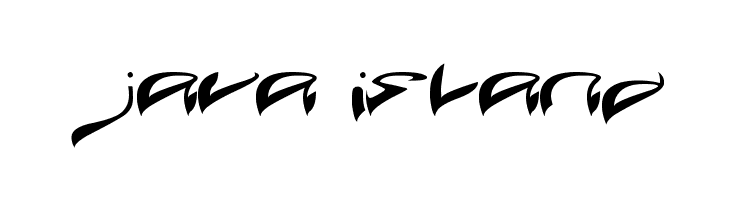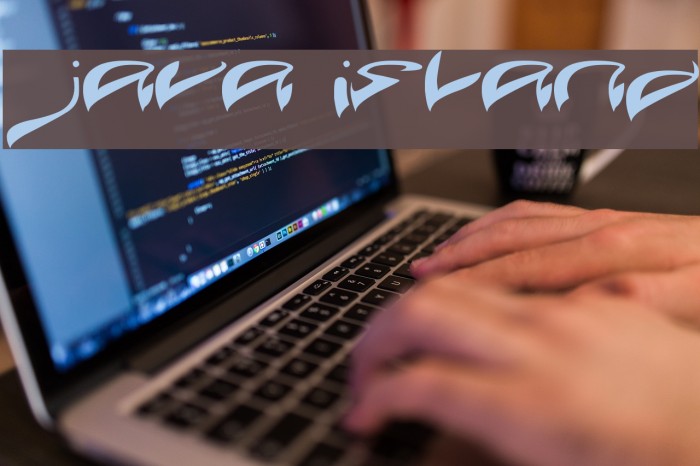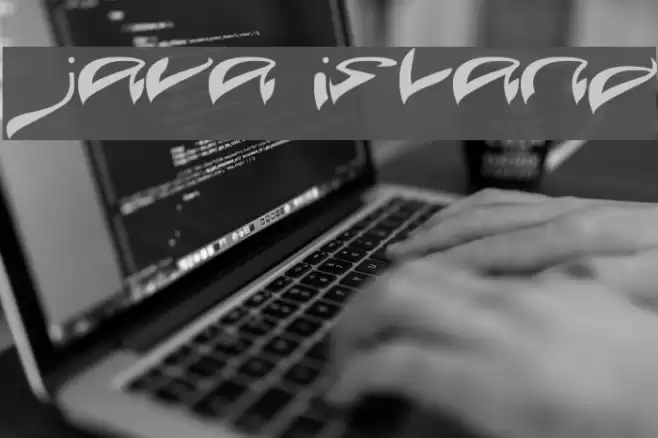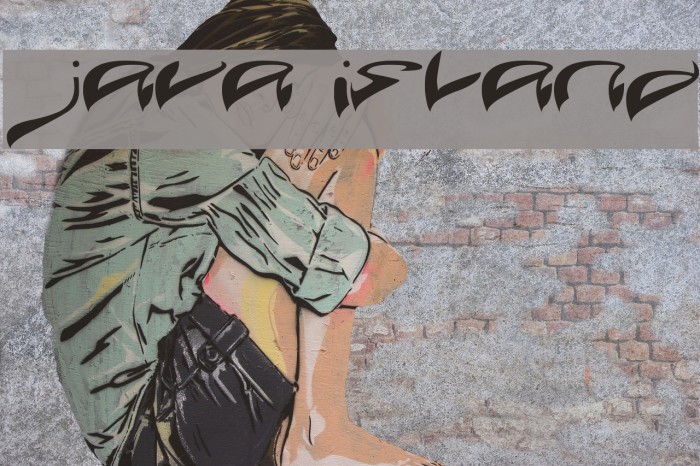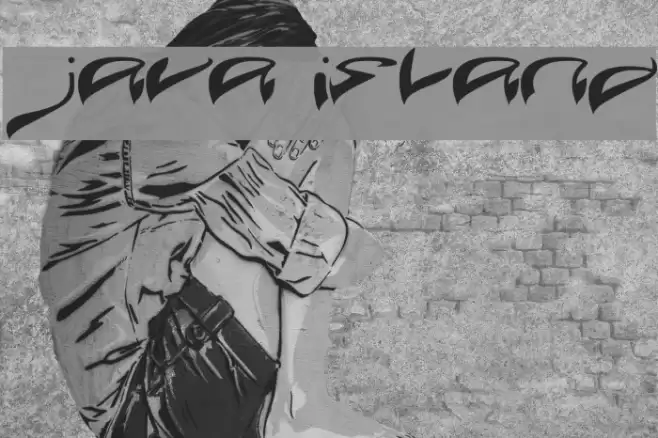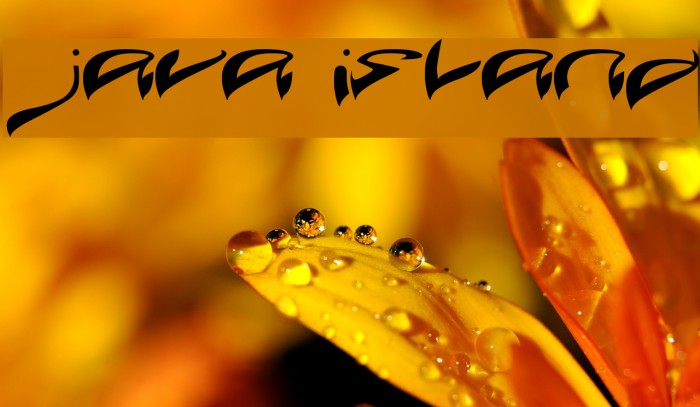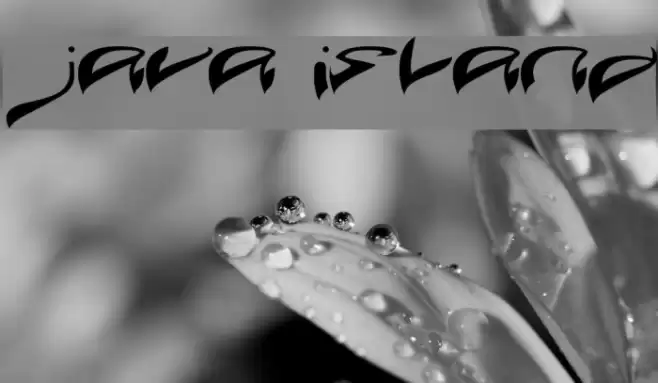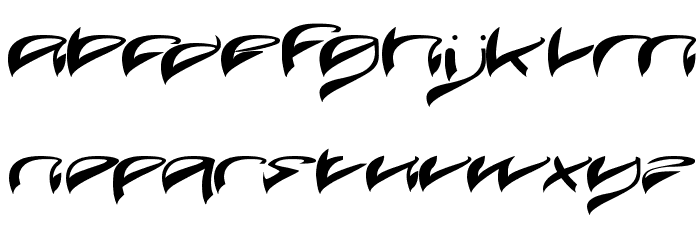
JAVA ISLAND Font
JAVA ISLAND Description
This font features a bold and dynamic script style with a modern flair. The characters are designed with sharp, angular strokes that give a sense of movement and energy. The uppercase and lowercase letters maintain a consistent style, with a slight slant that enhances the fluidity of the text. The font's unique design elements, such as the pointed edges and varying line thickness, create a striking visual impact. The overall appearance is both artistic and contemporary, making it suitable for creative and expressive projects.
| Use Case | Logos, Headlines, Artistic designs |
| Proposed Projects | Ideal for branding, logos, posters, and artistic designs that require a bold and expressive touch. |